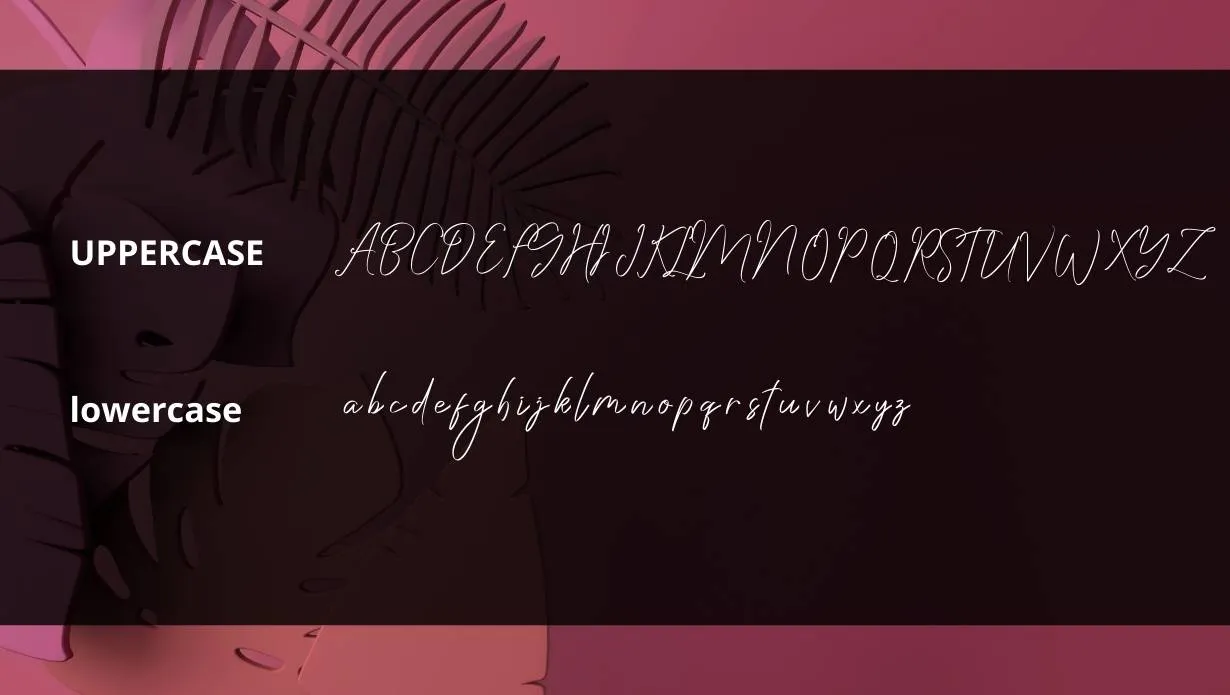
Saturday Font is a typeface that was designed in 2013 by Haksen Studio. The design is based on the rounded shapes of the handwritten typefaces that were popular in the 1920s. Saturday Typeface was created to be used for headlines and display purposes.
Saturday Font Info
| Name | Saturday Font |
| Designer | Haksen Studio |
| Style | Handwritten |
- Saturday Regular